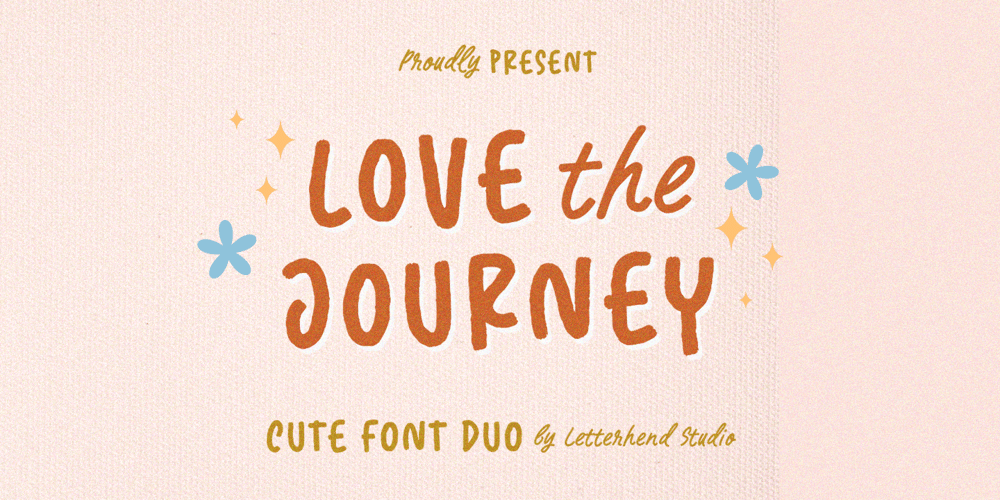
Love The Journey Font Family was designed by Hendry Juanda and published by Letterhend. Love The Journey contains 2 styles and family package options. Love The Journey is a cute handwritten font. It comes with 2 looks, regular and slant version. This font perfectly made to be applied especially in logo, and the other various formal forms such as invitations, labels, logos, magazines, books, greeting / wedding cards, packaging, fashion, make up, stationery, novels, labels or any type of advertising purpose.Features : Uppercase & lowercase Numbers and punctuation Alternates & Ligatures Multilingual PUA encoded We highly recommend using a program that supports OpenType features and Glyphs panels like many of Adobe apps and Corel Draw, so you can see and access all Glyph variations.